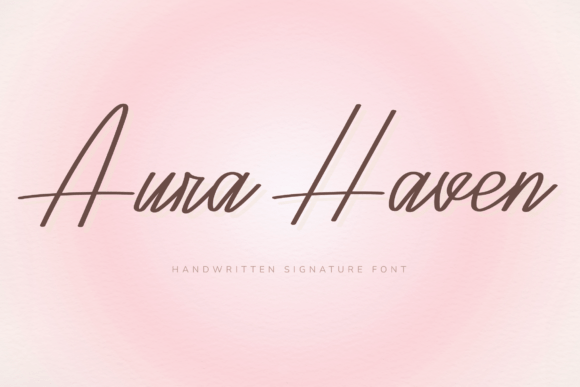
Introduction to Aura Haven Font
Aura Haven is a delicate handwritten signature font that blends soft elegance with modern minimal luxury.
Designed with airy strokes, refined curves, and a graceful handwritten flow, this font creates a calm and sophisticated aesthetic perfect for feminine branding Inspired by the warmth of a peaceful haven and the gentle glow of an aura, Aura Haven delivers a timeless handwritten look that feels personal, romantic, and effortlessly stylish.